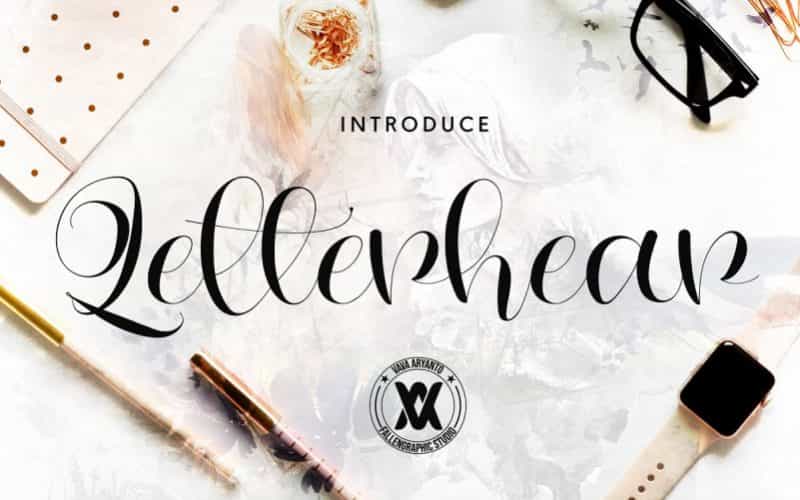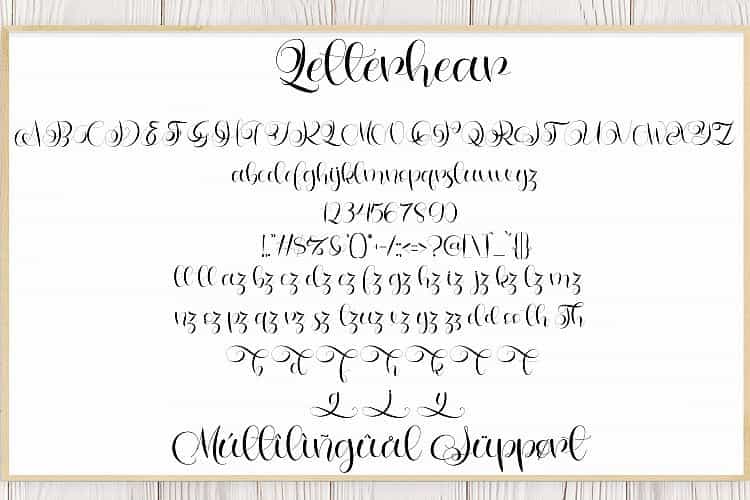
Discover Letterhear Calligraphy Font, part of the Calligraphy collection—a versatile and unique font perfect for adding a personal touch to your projects. Download it for free and enjoy crafting designs with style, from invitations to social media posts. This font is available exclusively for personal use, giving you the freedom to create without limits. Unlock your creativity with Letterhear Calligraphy Font today!
Letterhear a modern script with a feminimst calligraphy style, decorative characters. in this font script there are numerous options of characters that can be combined to form ligatures and support stylistic sets. Thus, they are so charming on the invitation, which can be a greeting card, branding materials, business cards, quotes, posters, wedding invitations and more!!